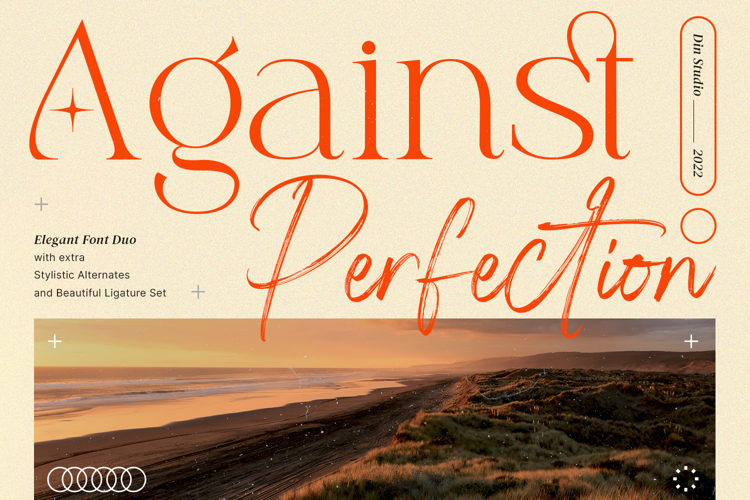
Against Perfection Script Font
Against Perfection is a brush style script font combined with the cheerful serif font to produce amazing designs together and to express elegant, modern displays. The detailed brush and swoosh styles make the letters look as if they were specially arranged. Its main characters are the solid weights and detailed interconnecting-letter strokes. In addition, this font has interesting features to maximize your designs.